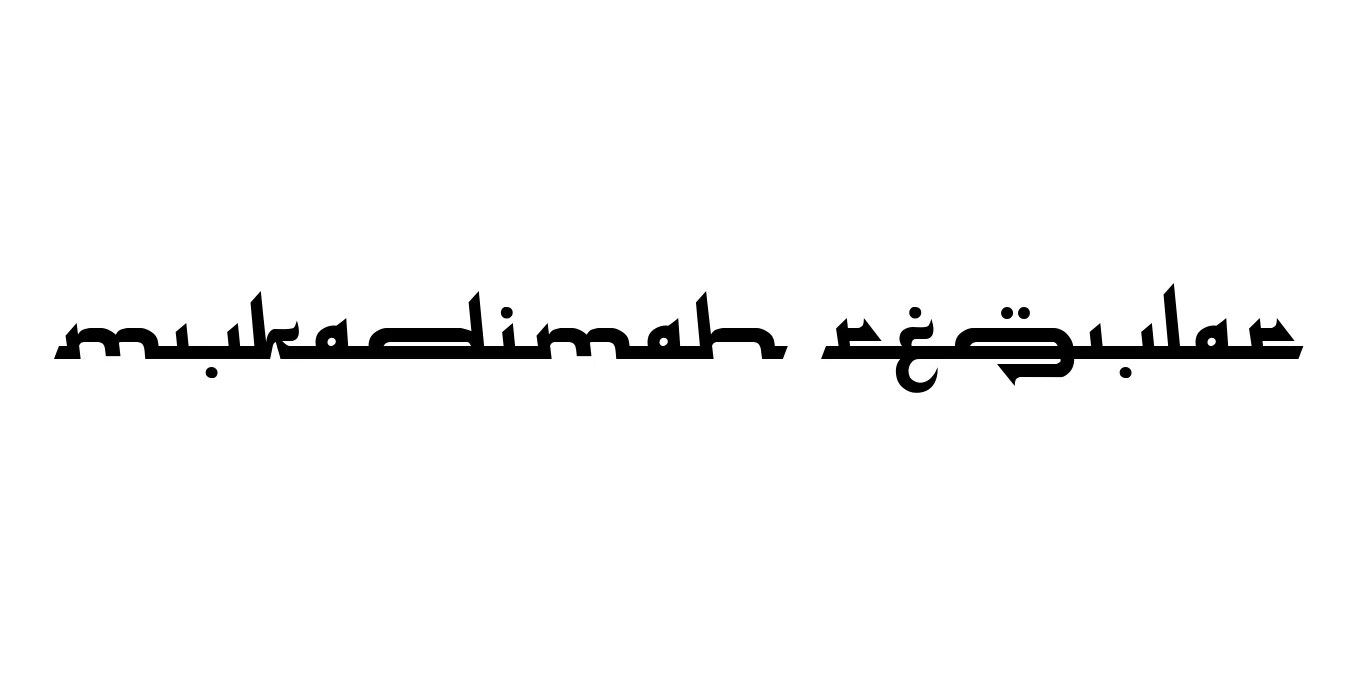
Mukadimah Regular
Designed by Maulana Creative
| Font Name | Mukadimah |
| Category | Arabic Style Display |
| Designer | Maulana Creative |
Mukadimah Regular is a sophisticated display font that draws heavy inspiration from traditional Arabic calligraphy and Middle Eastern aesthetics. Characterized by its fluid, bold strokes and geometric underpinnings, the font captures a sense of cultural heritage while remaining modern enough for contemporary design applications. Its unique visual rhythm makes it particularly effective for projects that require a sense of authority and artistic tradition.
The font is meticulously crafted to ensure that each character flows naturally, mimicking the hand-lettered feel of classical scripts. It is most frequently utilized in contexts where a strong visual statement is needed, such as in Islamic art, religious publications, and high-end cultural branding. By blending decorative elegance with structural clarity, Mukadimah Regular serves as a versatile tool for designers looking to add an exotic and premium touch to their creative work.
Mukadimah Regular Best Uses
Creating eye-catching posters and banners with a Middle Eastern theme.
Developing unique logos for boutique businesses or cultural organizations.
Using for book covers, titles, and headings in religious or cultural texts.
Crafting impactful announcements and quotes for special occasions like Ramadan or Eid.